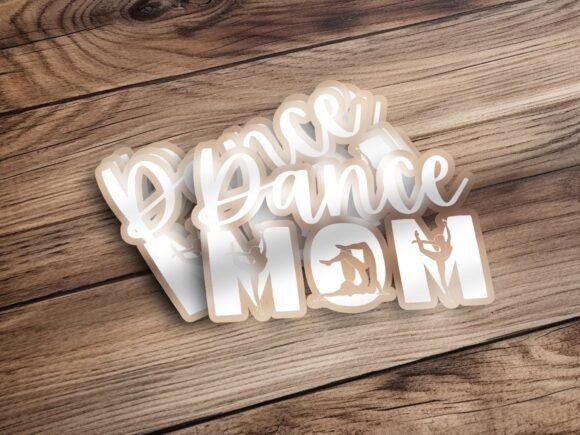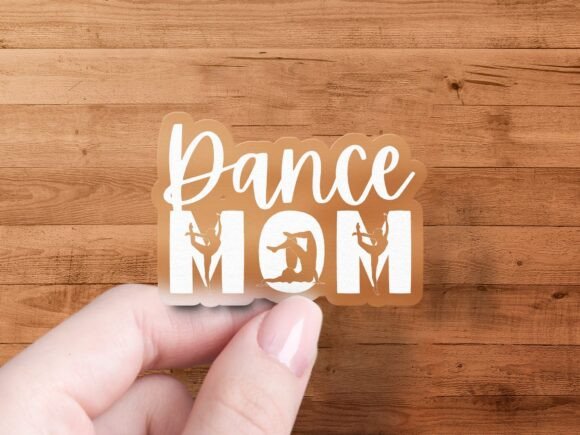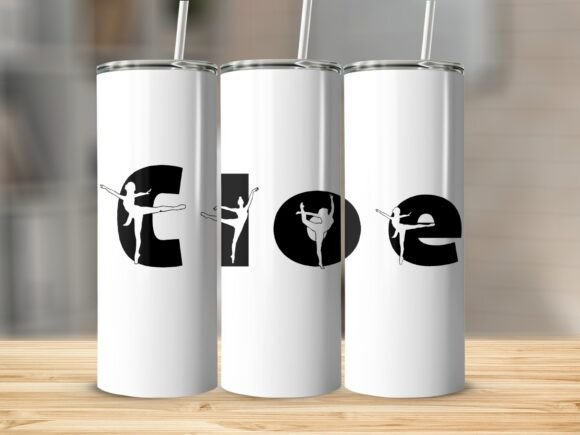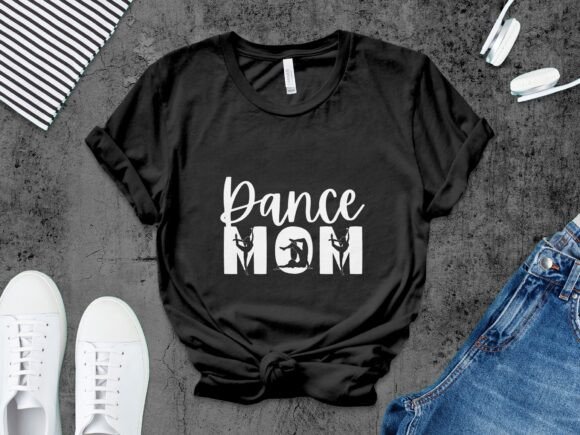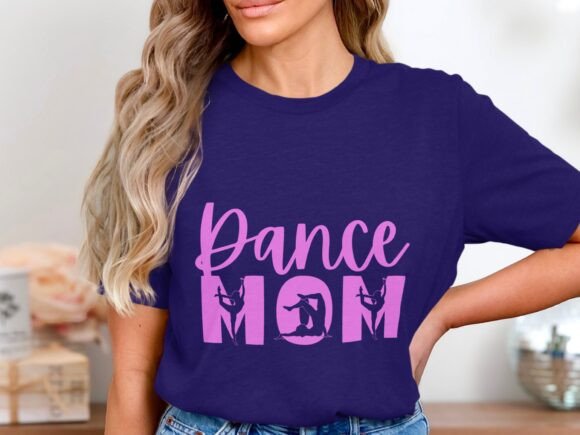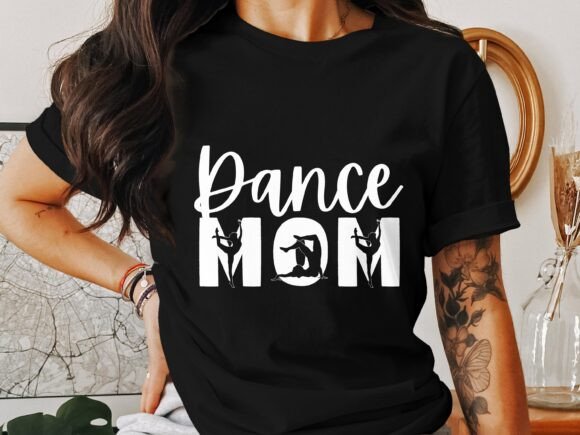
Introducing Dance Font: Elevate Your Designs with Style and Movement
Are you looking for a font that can add a touch of elegance and dynamism to your designs? Look no further than Dance Font, a stylish and bold display font perfect for dance-themed projects. In this article, we’ll explore the features and benefits of Dance Font, and how it can elevate your designs to the next level.
What is Dance Font?
Dance Font is a carefully crafted display font designed to capture the essence of movement and energy. Its bold and stylish letterforms are perfect for making a statement in any design project. Whether you’re creating t-shirts, invitations, posters, or social media graphics, Dance Font is the ideal choice for adding a touch of flair and sophistication.
Key Features of Dance Font
- Bold and Stylish: Dance Font features bold and stylish letterforms that are sure to grab attention.
- Perfect for Dance-Themed Projects: As the name suggests, Dance Font is specifically designed for dance-themed projects, making it perfect for dance studios, ballet schools, and more.
- Versatile: Dance Font can be used for a wide range of design projects, from t-shirts and invitations to posters and social media graphics.
- Easily Readable: Despite its bold style, Dance Font is easily readable, making it perfect for use in a variety of contexts.
Benefits of Using Dance Font
So why choose Dance Font for your design projects? Here are just a few benefits of using this stylish and versatile font:
- Adds Visual Interest: Dance Font adds a touch of movement and energy to any design, making it perfect for grabbing attention and holding it.
- Enhances Creativity: With its bold and stylish letterforms, Dance Font is sure to inspire creativity and add a unique touch to your designs.
- Perfect for Branding: Dance Font can be used to create a consistent brand identity for dance studios, ballet schools, and other dance-related businesses.
How to Use Dance Font in Your Designs
Using Dance Font in your designs is easy. Here are a few tips to get you started:
- Pair with Other Fonts: Dance Font pairs well with a variety of other fonts, making it easy to create a unique and visually appealing design.
- Experiment with Colors: Dance Font looks great in a variety of colors, so don’t be afraid to experiment and find the perfect hue for your design.
- Use for Headings and Titles: Dance Font is perfect for use in headings and titles, where its bold and stylish letterforms can really make an impact.
Who Can Benefit from Dance Font?
Dance Font is perfect for a wide range of designers and crafters, including:
- Dance Studio Owners: Dance Font is perfect for creating promotional materials, such as flyers, posters, and social media graphics, for dance studios and schools.
- Graphic Designers: Dance Font is a great addition to any graphic designer’s toolkit, providing a stylish and versatile font for a wide range of design projects.
- Crafters: Dance Font is perfect for crafters who want to add a touch of elegance and sophistication to their handmade projects, such as t-shirts, invitations, and cards.
In conclusion, Dance Font is a stylish and bold display font perfect for dance-themed projects. Its bold and stylish letterforms, versatility, and ease of use make it an ideal choice for designers and crafters looking to add a touch of movement and flair to their designs. Whether you’re creating t-shirts, invitations, posters, or social media graphics, Dance Font is sure to elevate your designs to the next level.